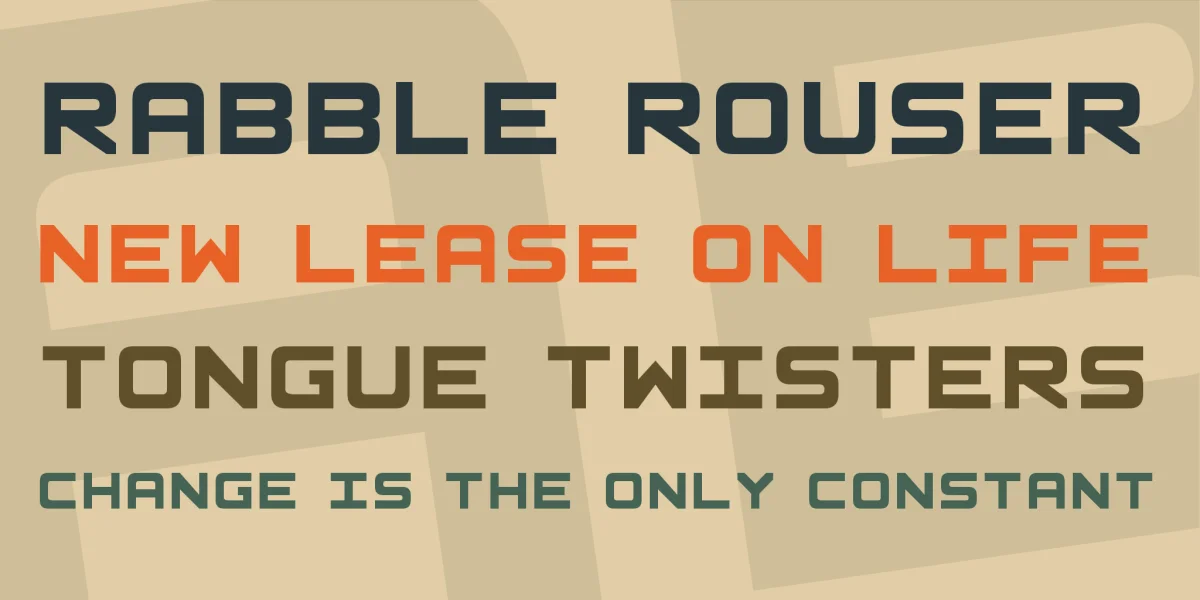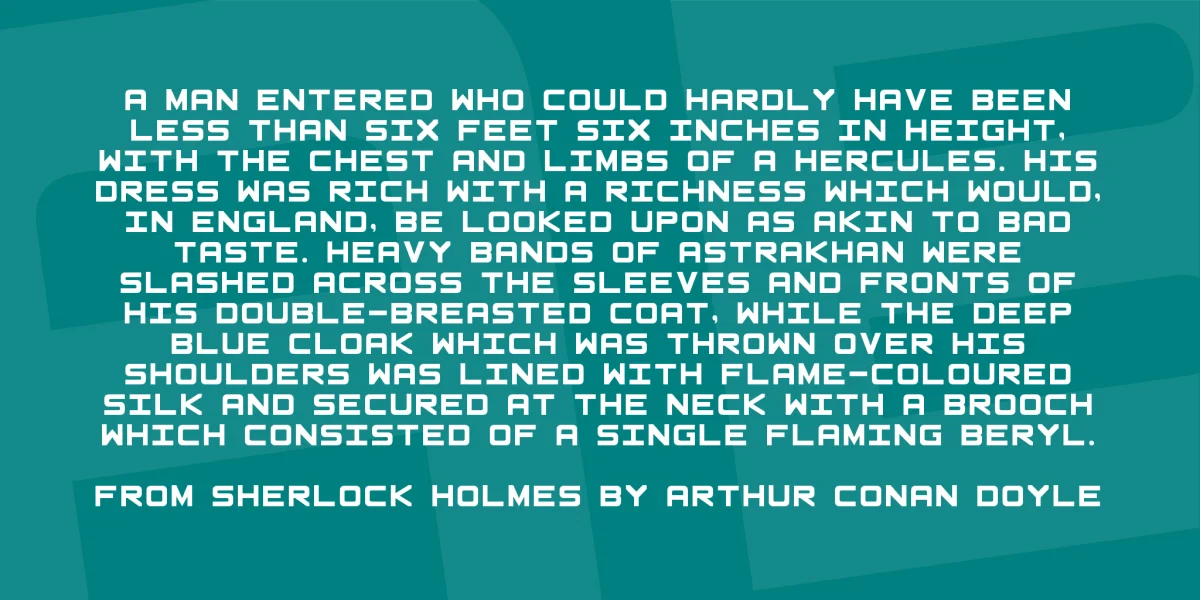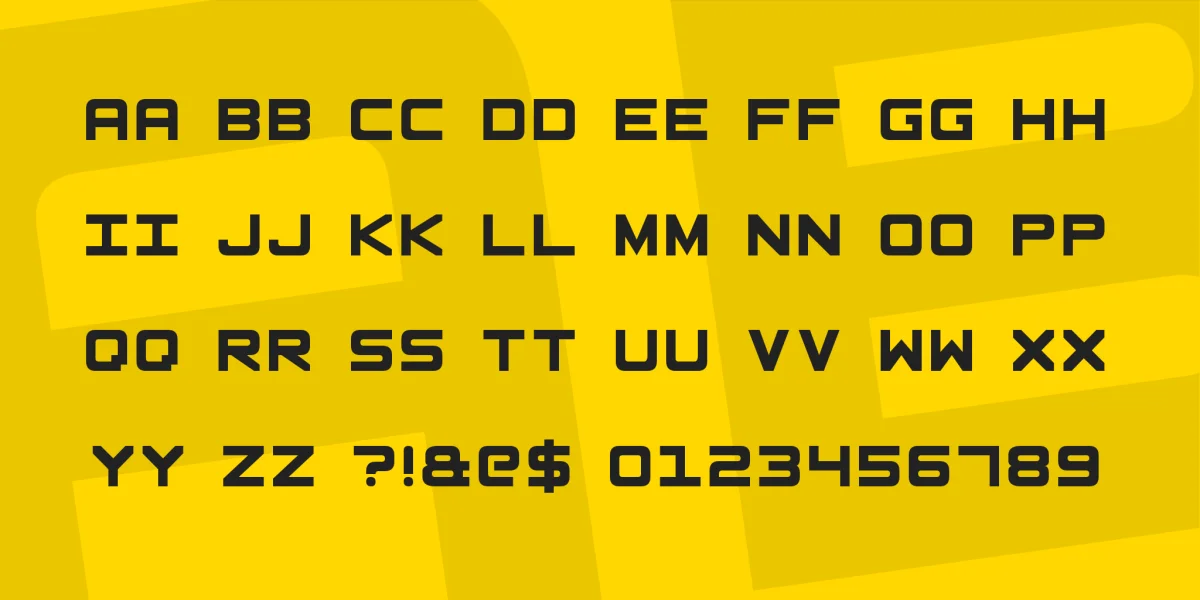
Basic square font. There are two types: with outlines and solid, freeware for home using only. Use this link to buy the license. Please enter font name in web form.